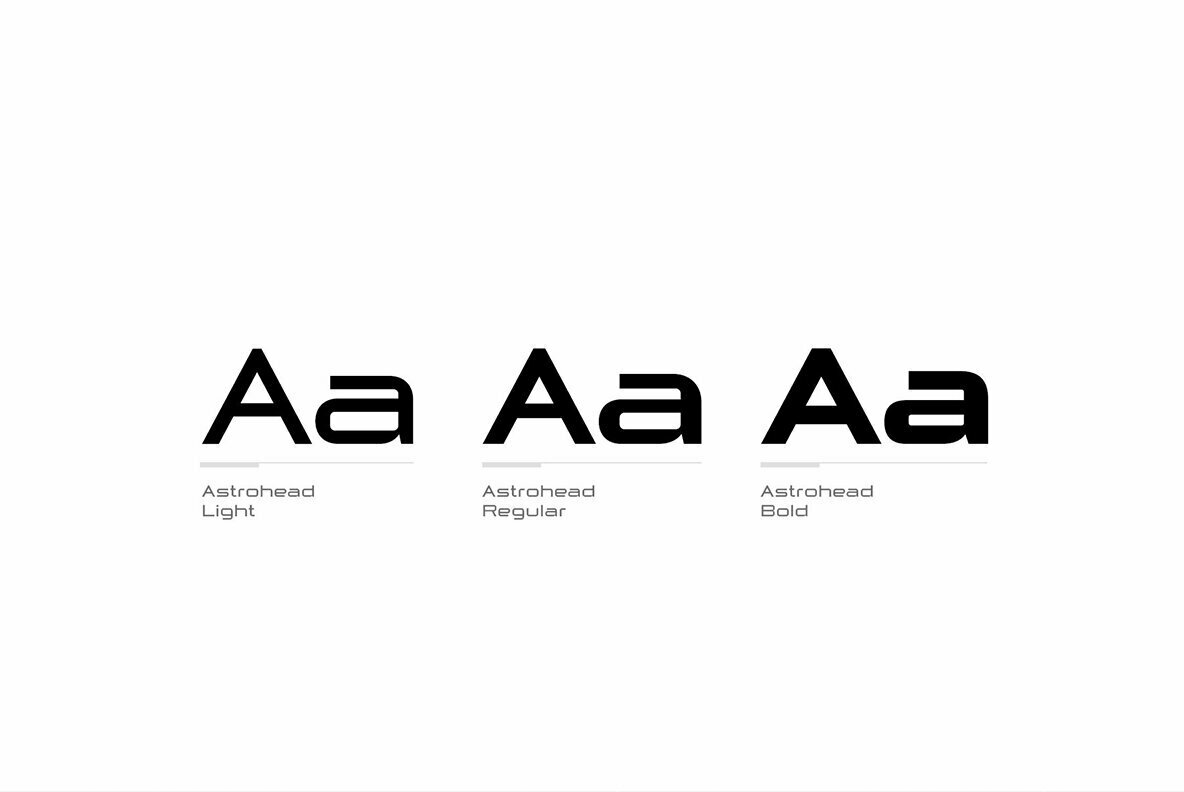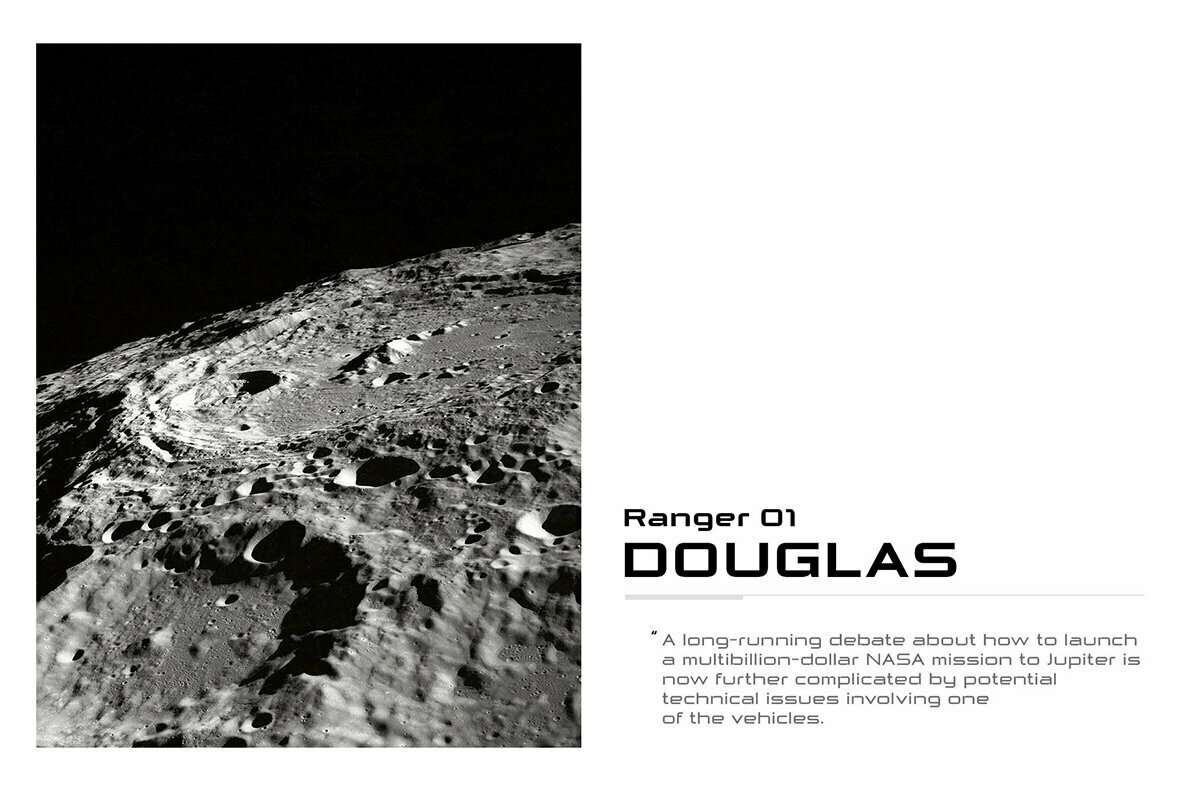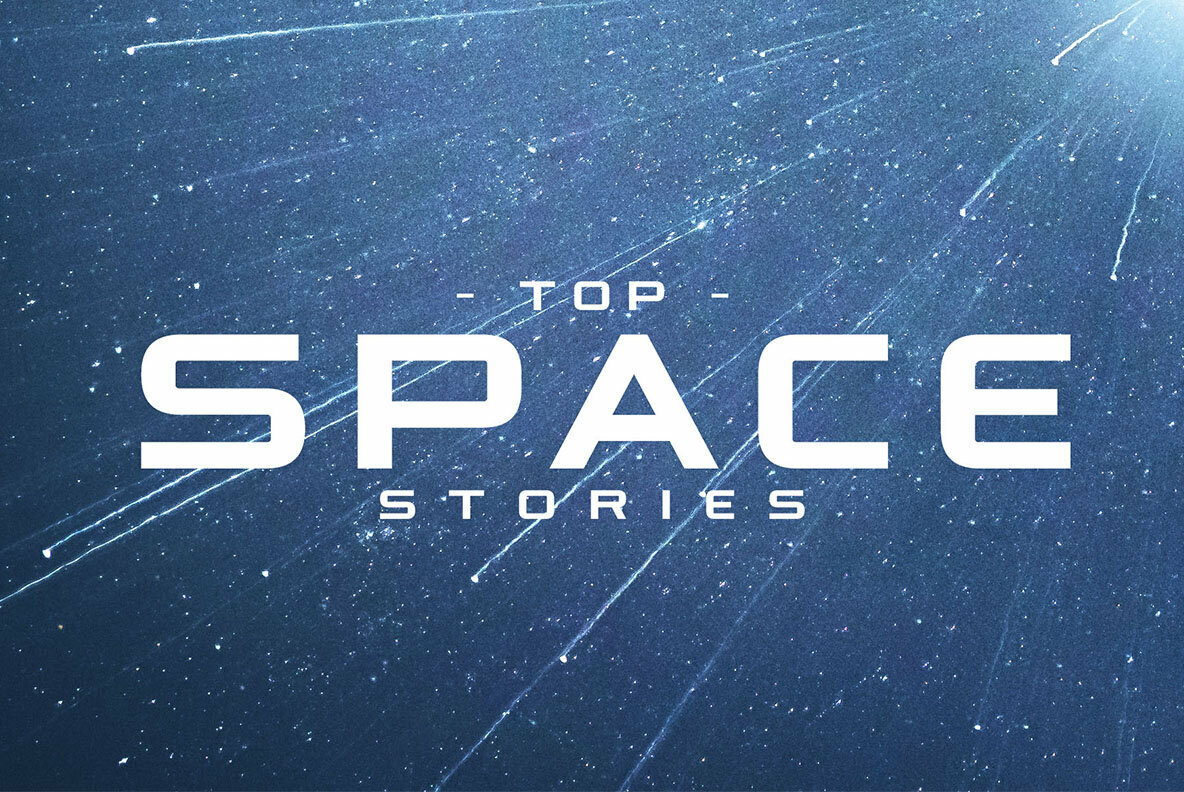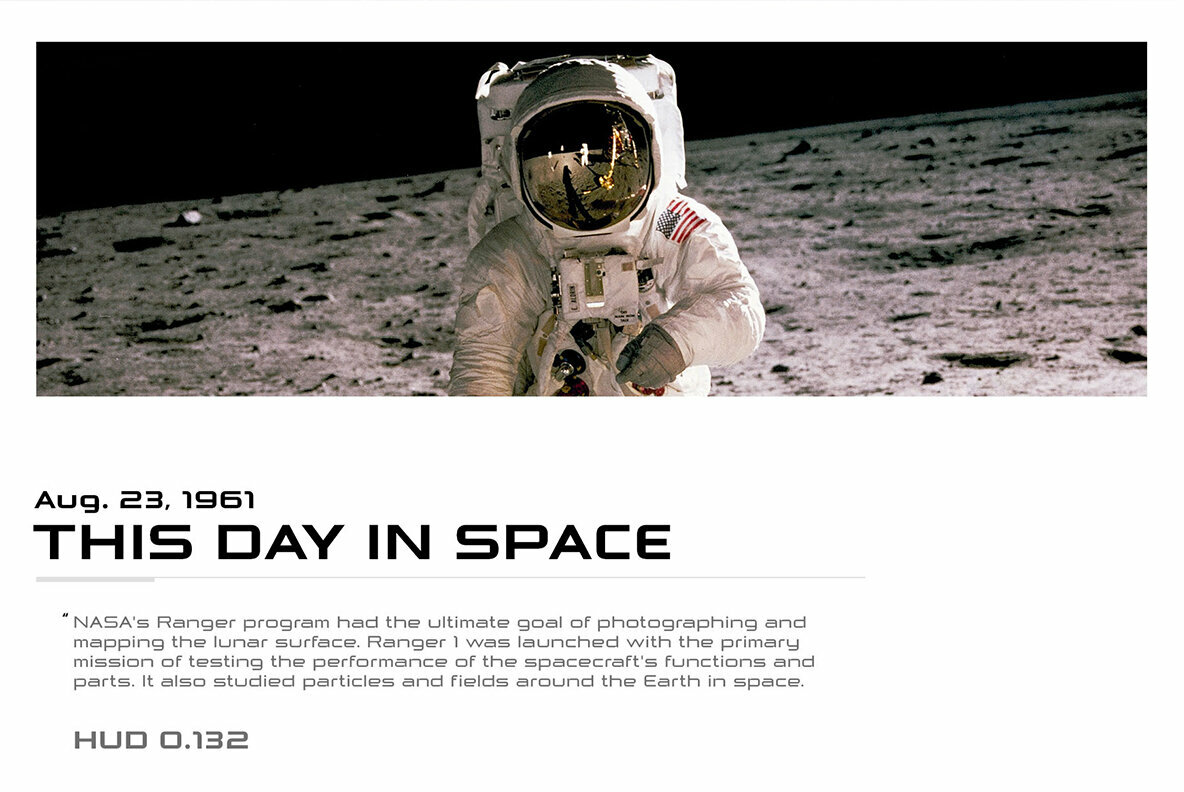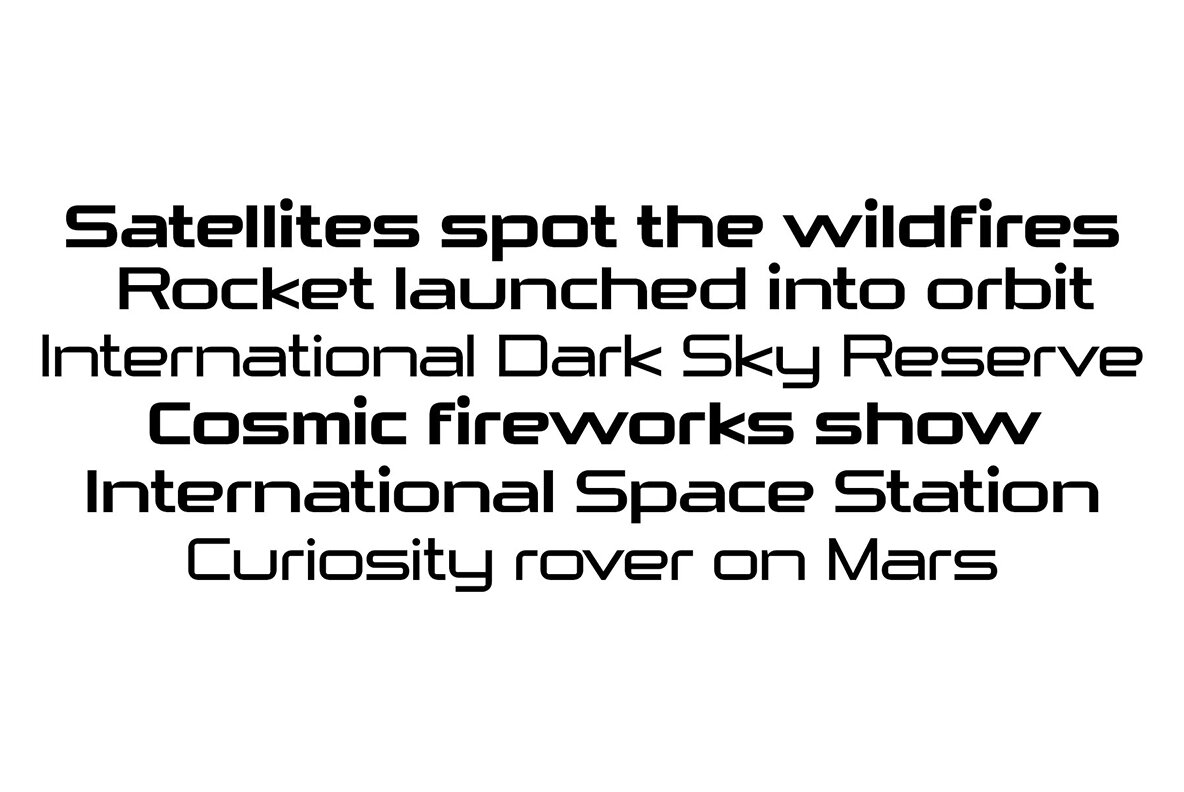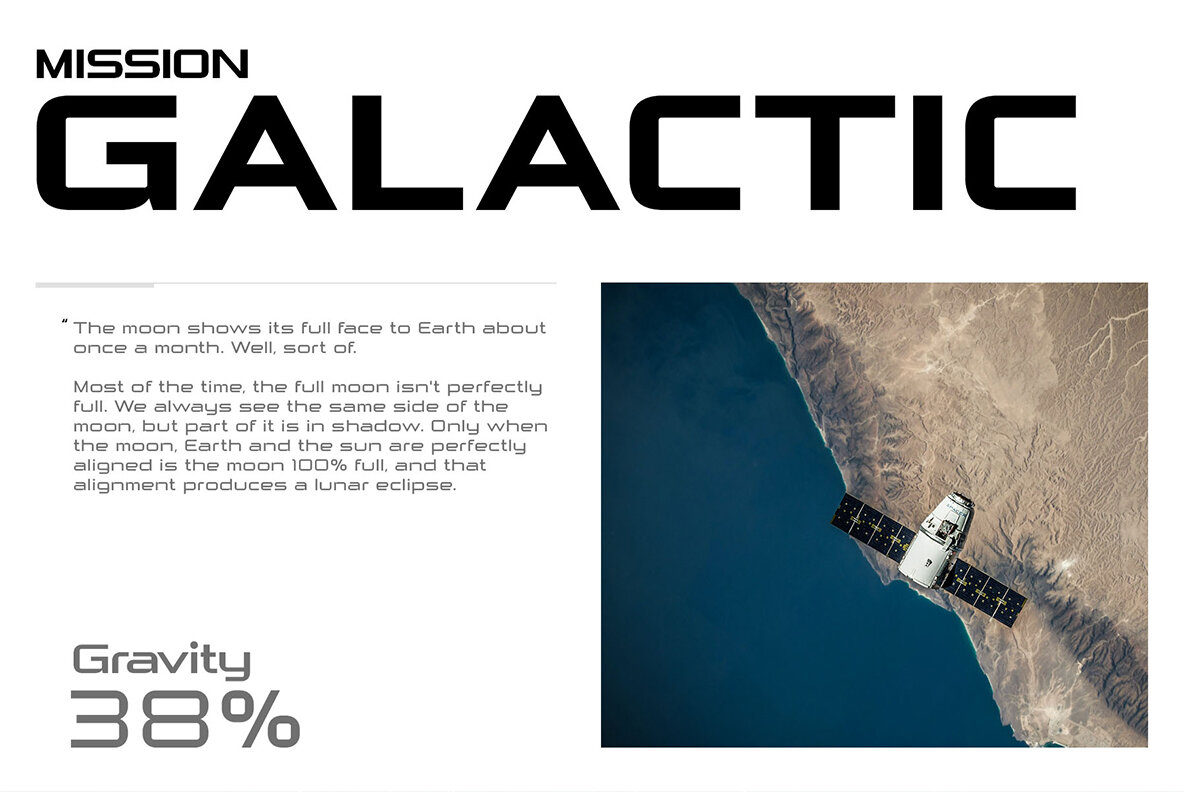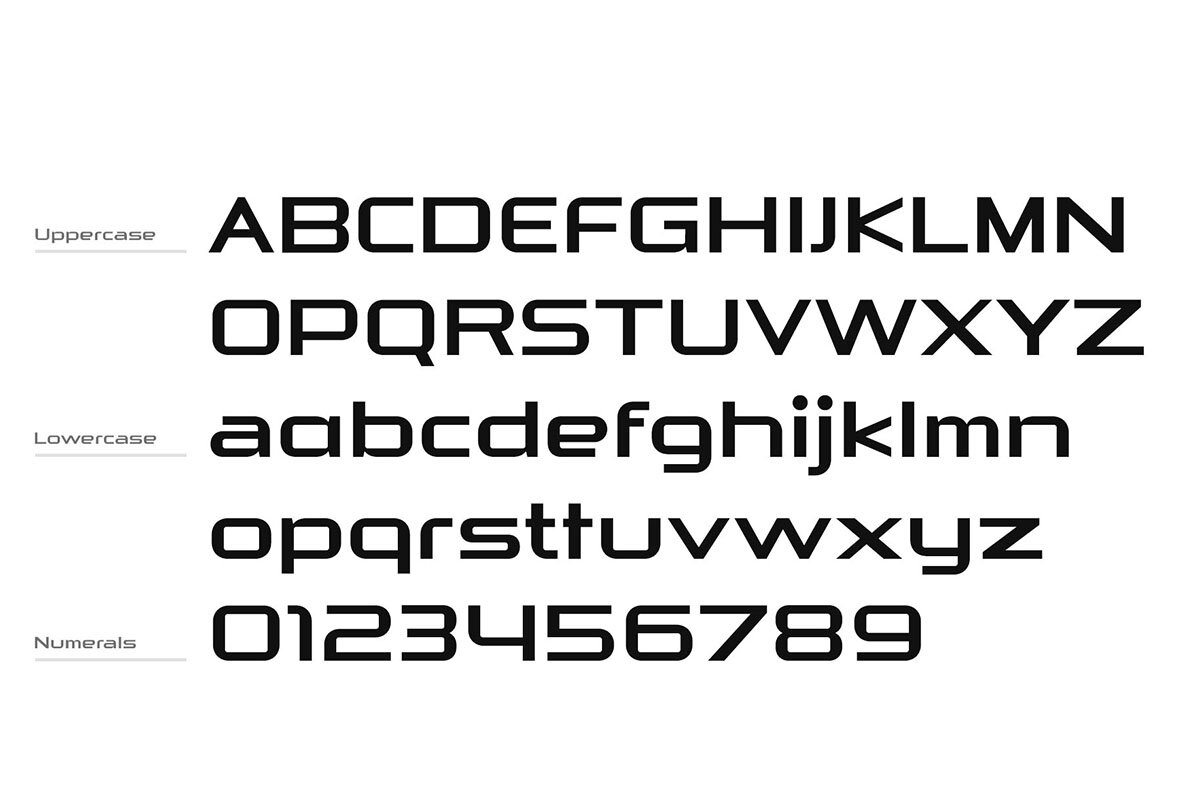
Astrohead Font
Astrohead is the brand new font family of the Headfonts collection. This geometric sans serif typeface takes its inspiration from the early desktop systems, and video games. This style approach gives it a distinct futuristic, old sci-fi movie titles look. Astrohead has a minimal design, with wide letterforms, a high X-height, closed apretures, short "e" finial and its overall design mixes round and sharp corners to enhance that futuristic appearance.
Astrohead has three weights, uppercase and lowercase, standard Latin script with alternative glyphs for letters "a" and "t", numerals and 100 glyphs per each font. Astrohead is the perfect choice for ultramodern designs. From video game designs, sci-fi inspired posters and movie titles to logos but can also be used for small articles and occasional texts.